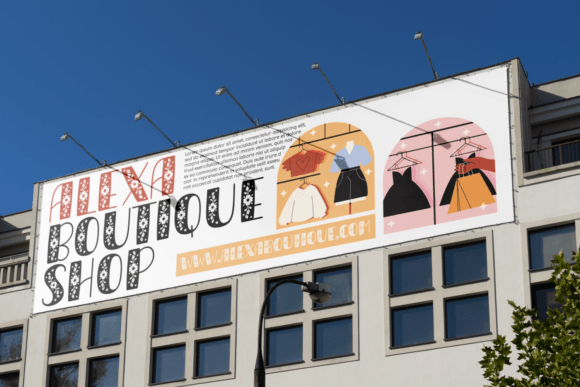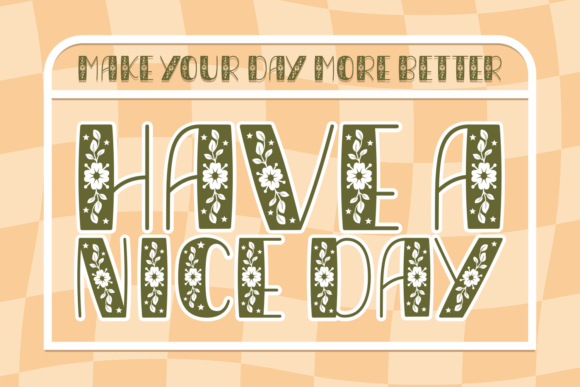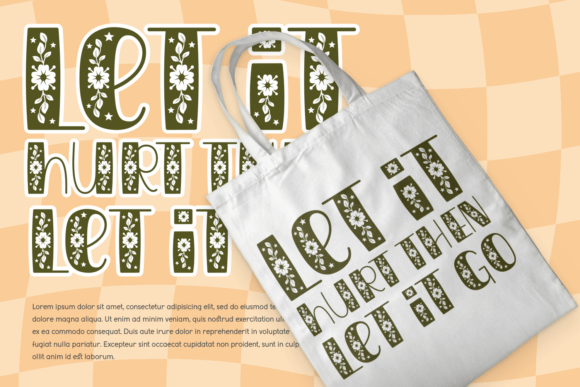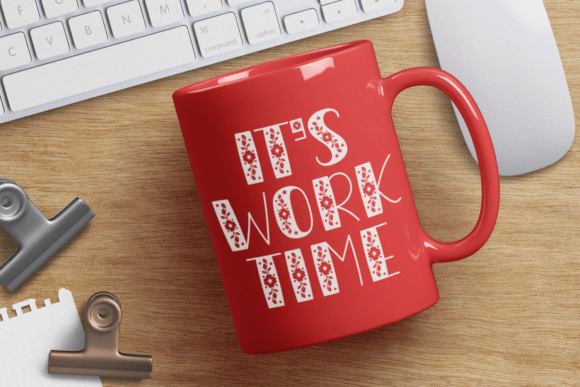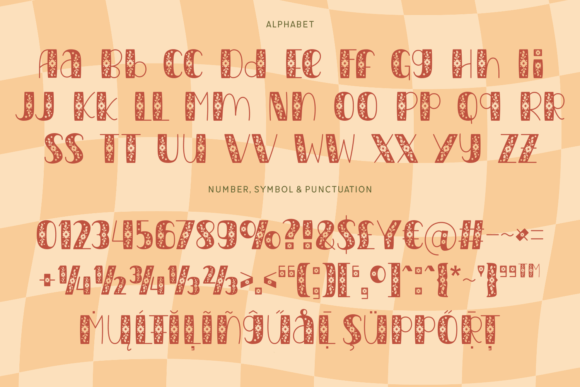
Catchy Flower Font: Add a Touch of Playfulness to Your Designs
Are you looking for a font that can add a dash of playfulness and whimsy to your designs? Look no further than Catchy Flower Font! This adorable flower-inspired decorative font is perfect for designers and crafters who want to create beautiful and eye-catching projects. In this article, we’ll take a closer look at Catchy Flower Font, its features, and how you can use it to elevate your designs.
What is Catchy Flower Font?
Catchy Flower is a playful and cute flower-inspired decorative font that is designed to add a touch of elegance and playfulness to your designs. The font features a lovely flower pattern that makes it perfect for any project that requires a touch of whimsy and charm. With its unique and intricate design, Catchy Flower Font is sure to make your designs stand out from the crowd.
Features of Catchy Flower Font
Catchy Flower Font comes with a range of features that make it perfect for designers and crafters. Some of its key features include:
- Playful and cute design: The font features a playful and cute flower pattern that is sure to add a touch of whimsy to your designs.
- Decorative font: Catchy Flower Font is a decorative font that is designed to add a touch of elegance and sophistication to your designs.
- Versatile: The font is versatile and can be used for a wide range of projects, including wedding invitations, thank you cards, quotes, greeting cards, logos, and more.
- Easily customizable: The font is easily customizable, allowing you to adjust the size, color, and style to suit your needs.
Uses of Catchy Flower Font
Catchy Flower Font is a versatile font that can be used for a wide range of projects. Here are some ideas on how you can use this beautiful font:
- Wedding invitations: Add a touch of elegance and playfulness to your wedding invitations with Catchy Flower Font.
- Thank you cards: Create beautiful and personalized thank you cards with Catchy Flower Font.
- Quotes and posters: Use Catchy Flower Font to create eye-catching quotes and posters that are sure to grab attention.
- Greeting cards: Create beautiful and personalized greeting cards for special occasions such as birthdays, anniversaries, and holidays.
- Logos and branding: Use Catchy Flower Font to create unique and memorable logos and branding materials.
Tips for Using Catchy Flower Font
Here are some tips for using Catchy Flower Font:
- Use it sparingly: While Catchy Flower Font is a beautiful font, it’s best to use it sparingly to avoid overwhelming your design.
- Pair it with other fonts: Pair Catchy Flower Font with other fonts to create a unique and visually appealing design.
- Experiment with colors: Experiment with different colors to find the perfect combination that works with your design.
- Pay attention to size: Pay attention to the size of the font to ensure that it’s legible and easy to read.
Catchy Flower Font is a beautiful and versatile font that is perfect for designers and crafters who want to add a touch of playfulness and whimsy to their designs. With its unique and intricate design, Catchy Flower Font is sure to make your designs stand out from the crowd. Whether you’re creating wedding invitations, thank you cards, quotes, greeting cards, logos, or branding materials, Catchy Flower Font is the perfect choice. So why wait? Download Catchy Flower Font today and start creating beautiful and eye-catching designs!